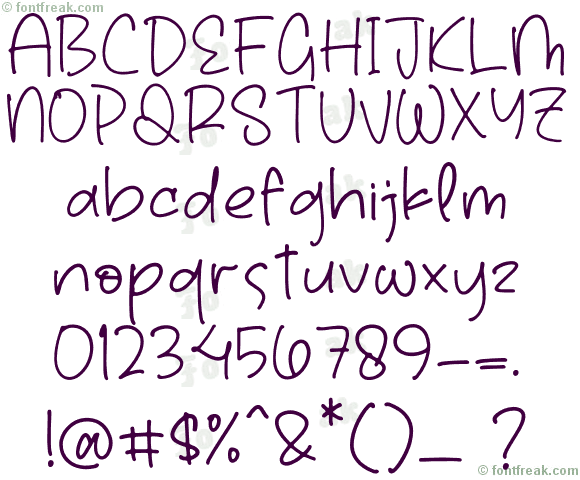
Coashela Notes
Coashela Notes is a charming handwritten font crafted by Perspectype Studio, released in 2021 under a freeware license. This font beautifully embodies a casual yet elegant style, making it an ideal choice for projects that require a personal touch. The strokes in Coashela Notes are uneven, providing an authentic handwritten appearance that evokes warmth and spontaneity. With its moderate stroke weight and gentle curves, the font strikes a balance between readability and artistic flair, ensuring that it stands out without overwhelming the viewer.
The visual characteristics of Coashela Notes include a playful spacing between letters that enhances its approachable nature. The font features subtle decorative elements, such as slight flourishes at the ends of certain letters, which contribute to its unique character while maintaining clarity. This makes it a versatile option for various applications.
This font shines in several specific use cases, such as wedding invitations where a personal touch is essential, charming restaurant menus that invite diners to explore the offerings, and engaging social media graphics that connect with audiences. Additionally, it works well for greeting cards, where a handwritten effect can convey heartfelt messages, and in branding for small businesses looking to create a friendly and inviting image.
Targeting graphic designers, small business owners, and content creators, Coashela Notes provides an excellent tool for those looking to infuse their projects with personality. The font’s ability to evoke emotions while remaining accessible makes it a valuable asset for anyone in need of a distinctive typographic solution. For those seeking a unique handwritten style, the Coashela Notes font free download presents an opportunity to elevate their creative endeavors. Its blend of charm, versatility, and character ensures that it will leave a lasting impression.